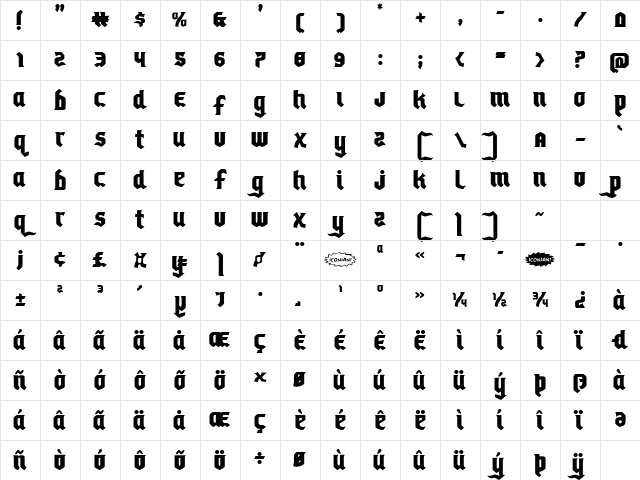
Empire Crown Regular
Empire Crown Family
Design Context for Empire Crown
Empire Crown is a composed and adaptable typeface that performs quietly and consistently across a wide range of design contexts.